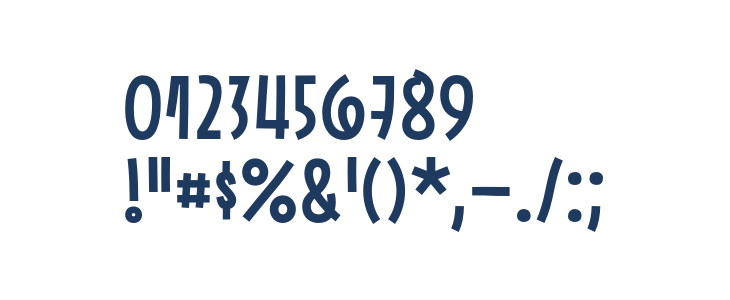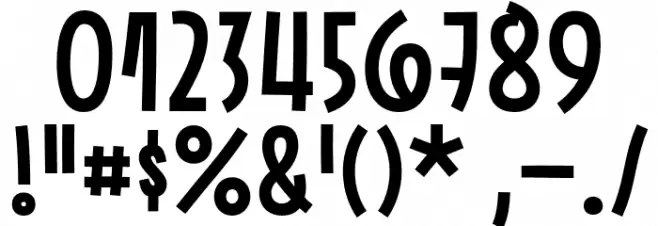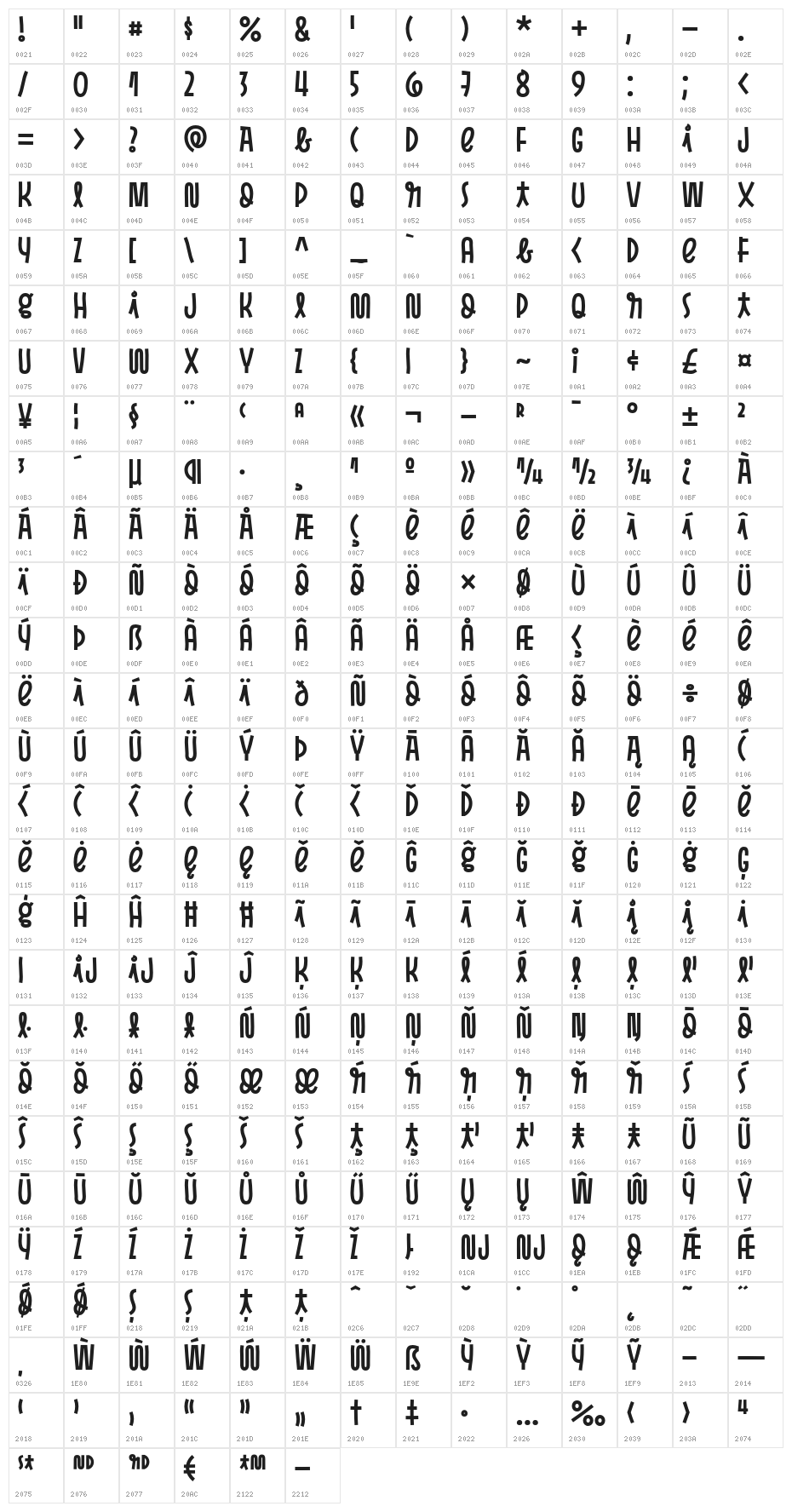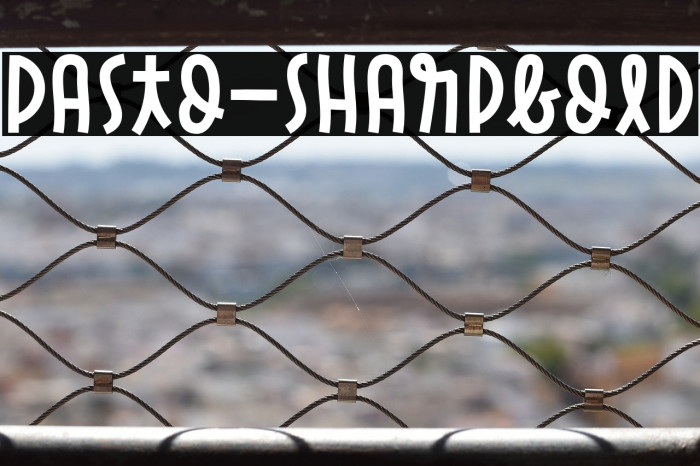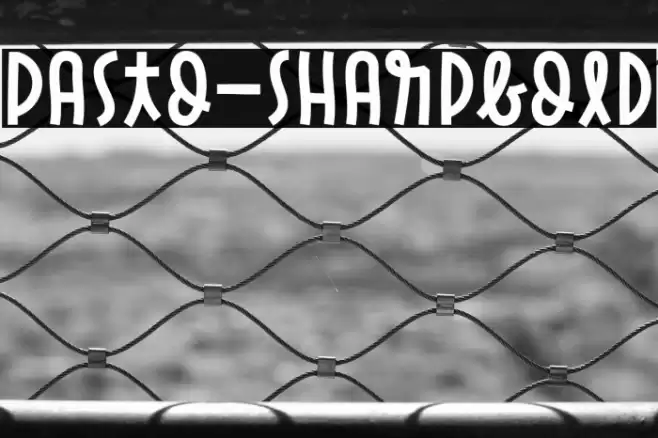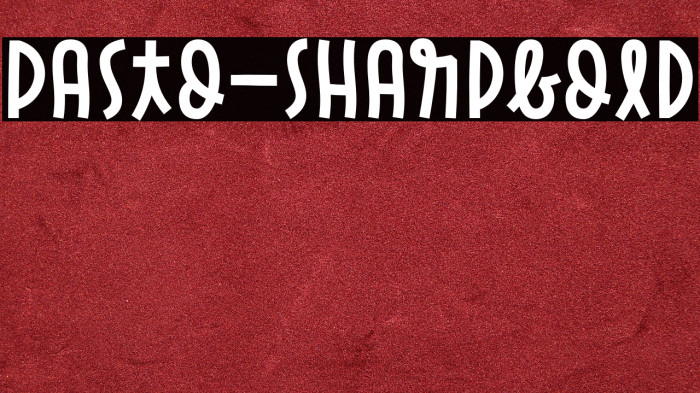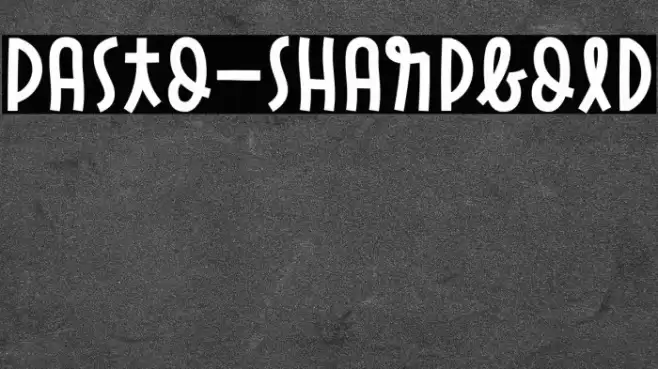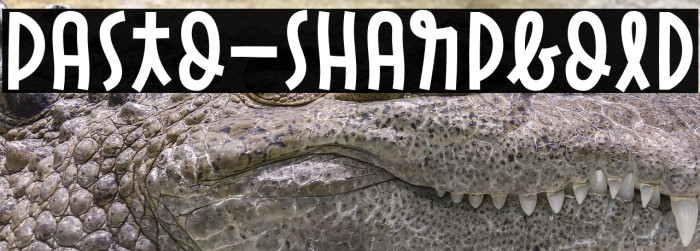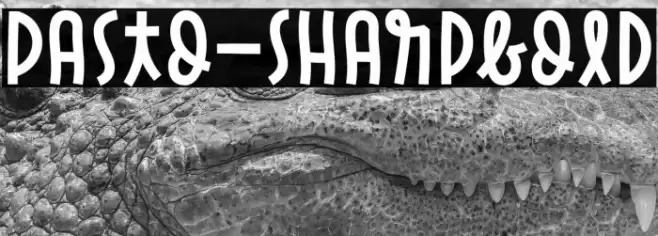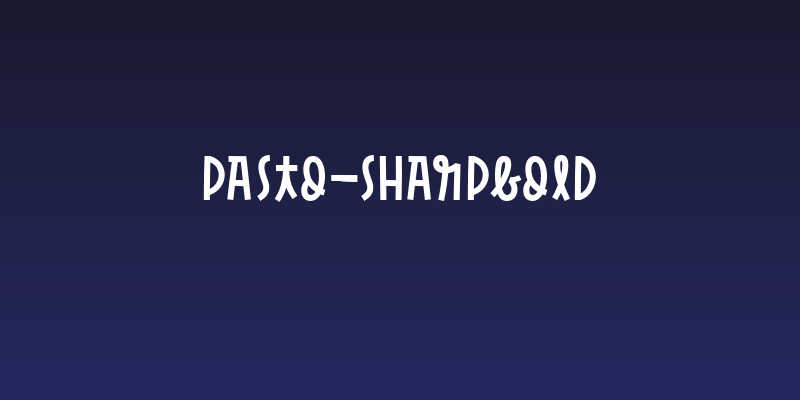
Pasto-SharpBold Font
Pasto-SharpBold Description
This font features a bold and playful design with a distinctively quirky and artistic flair. The characters are crafted with a unique combination of sharp angles and smooth curves, giving it a dynamic and energetic appearance. The uppercase letters are particularly striking, with exaggerated forms that add a sense of movement and creativity. The lowercase letters maintain this playful style, ensuring consistency throughout the typeface. The numerals are bold and clear, making them easily readable while still maintaining the font's overall whimsical character. Special characters are designed with the same attention to detail, providing a cohesive look across all symbols.
| Overall Style | Playful, Artistic, Quirky |
| Proposed Projects | Ideal for creative projects such as posters, children's books, branding for playful products, or any design requiring a fun and energetic typeface. |